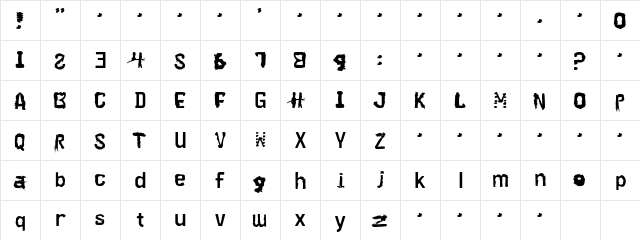
Sauertwiggo Regular
Design Context for Sauertwiggo Typeface
Sauertwiggo is a composed and adaptable typeface that performs quietly and consistently across a wide range of design contexts.